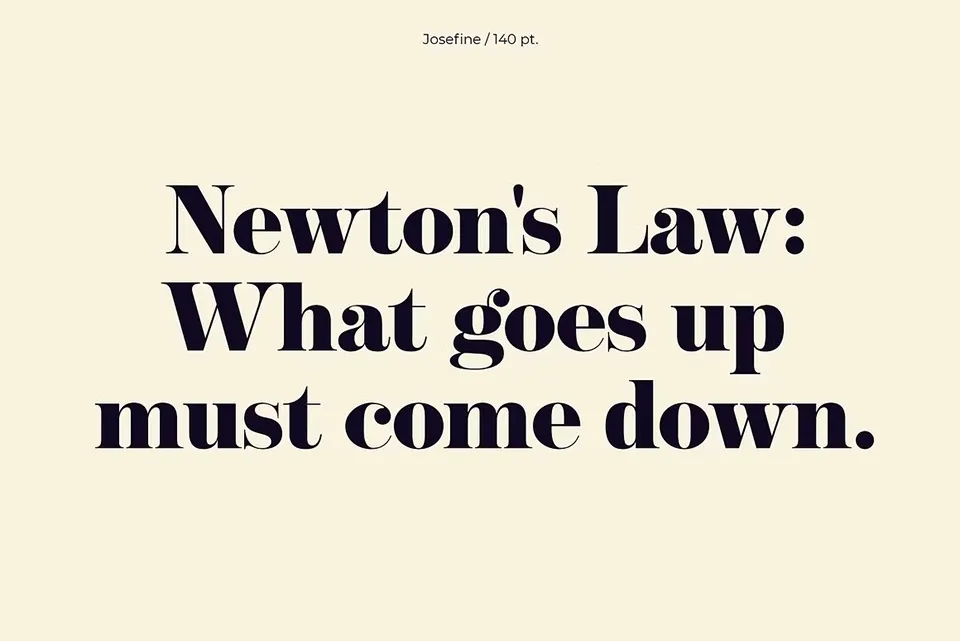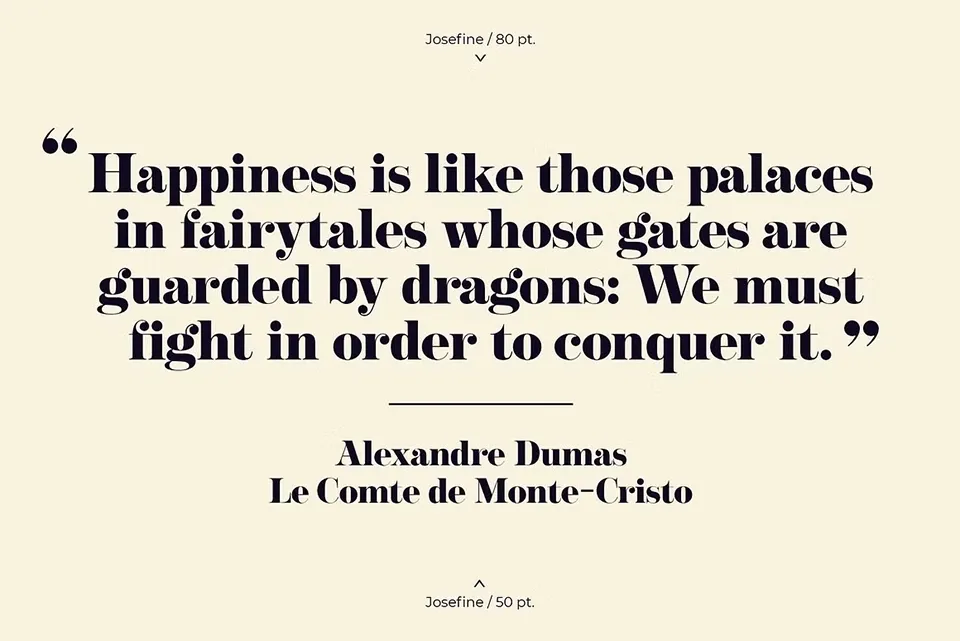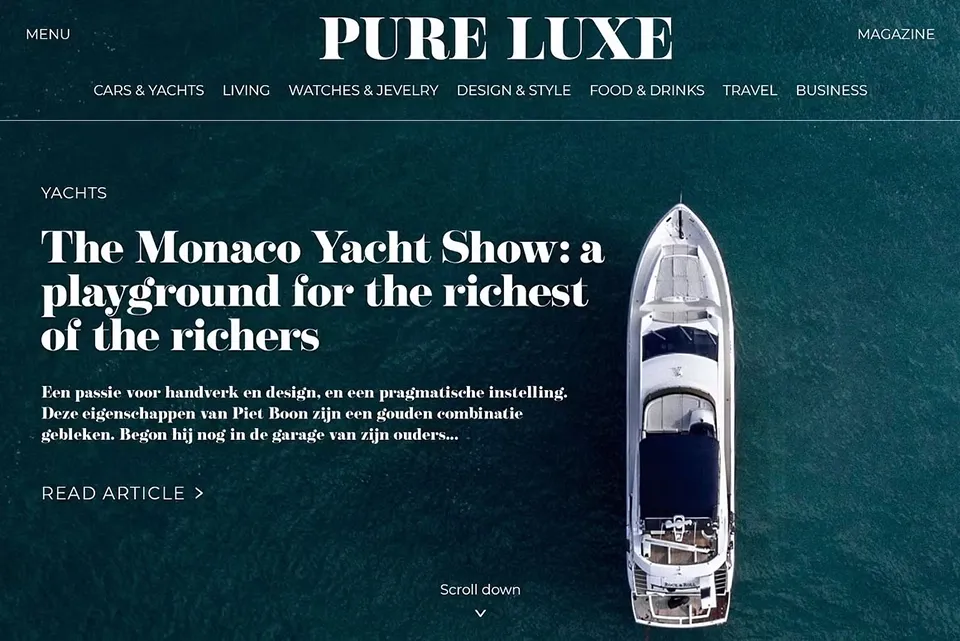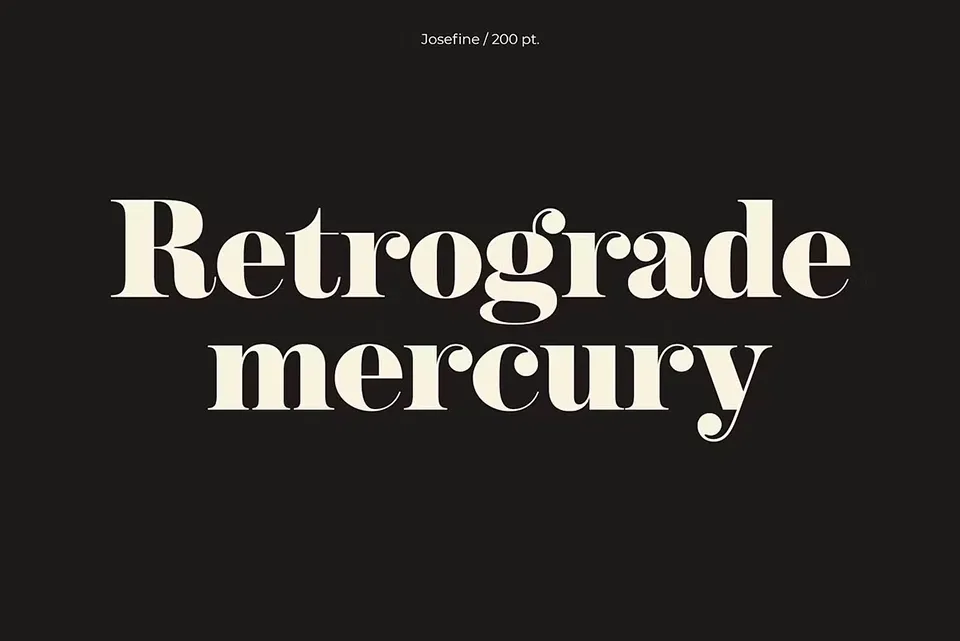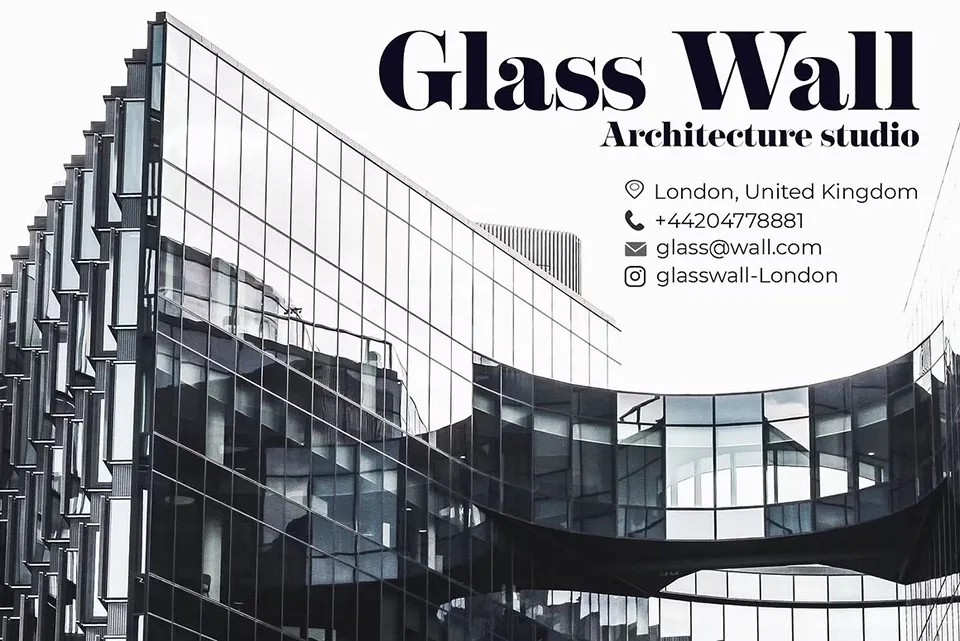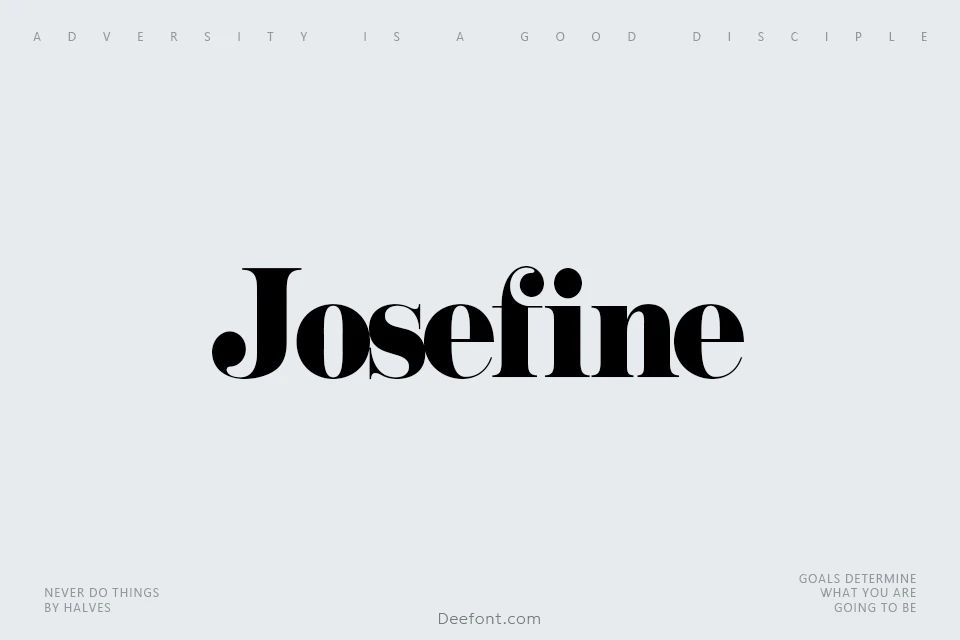
NT Josefine Font
The NT Josefine Font is a stylish and elegant serif typeface designed to bring a touch of sophistication and retro boldness to any project. Created by Artem Nevsky, this font is perfect for invitations, postcards, posters, book covers, advertisements, websites, logos, magazines, branding, fashion, and photography. Its high contrast and refined details make it suitable for both modern and classic design aesthetics.